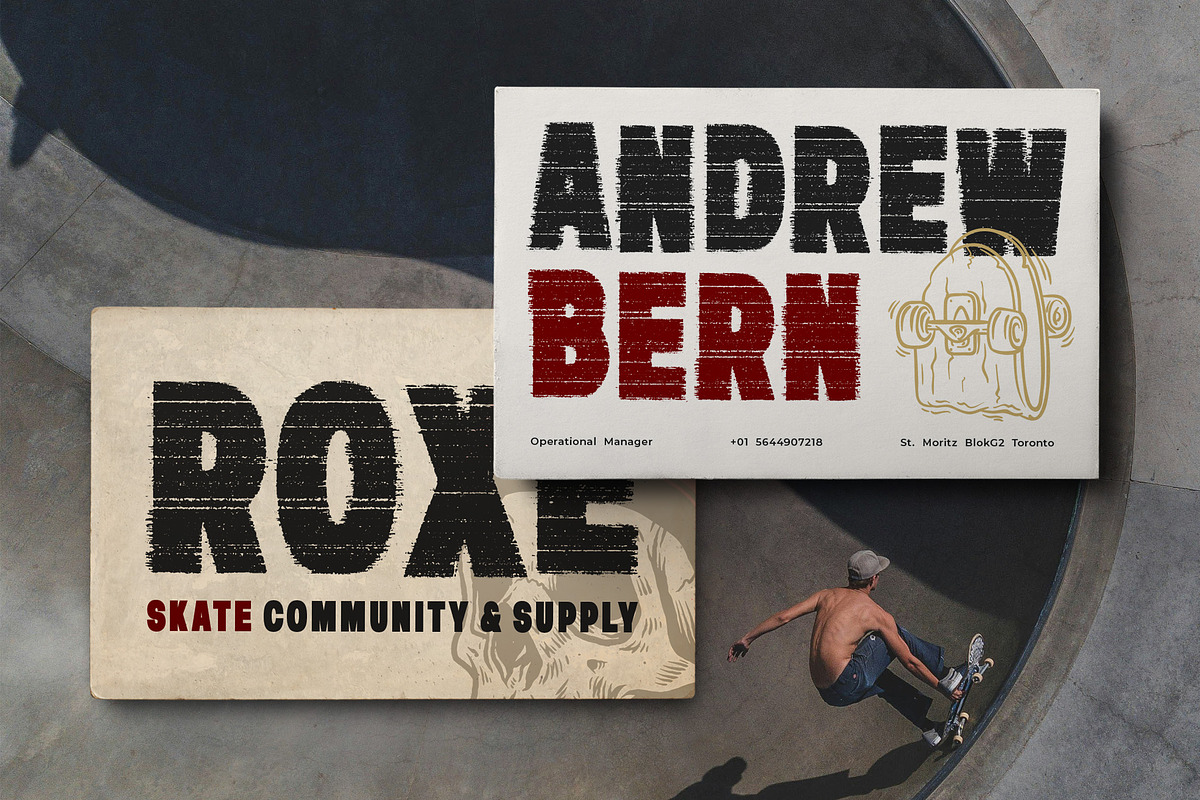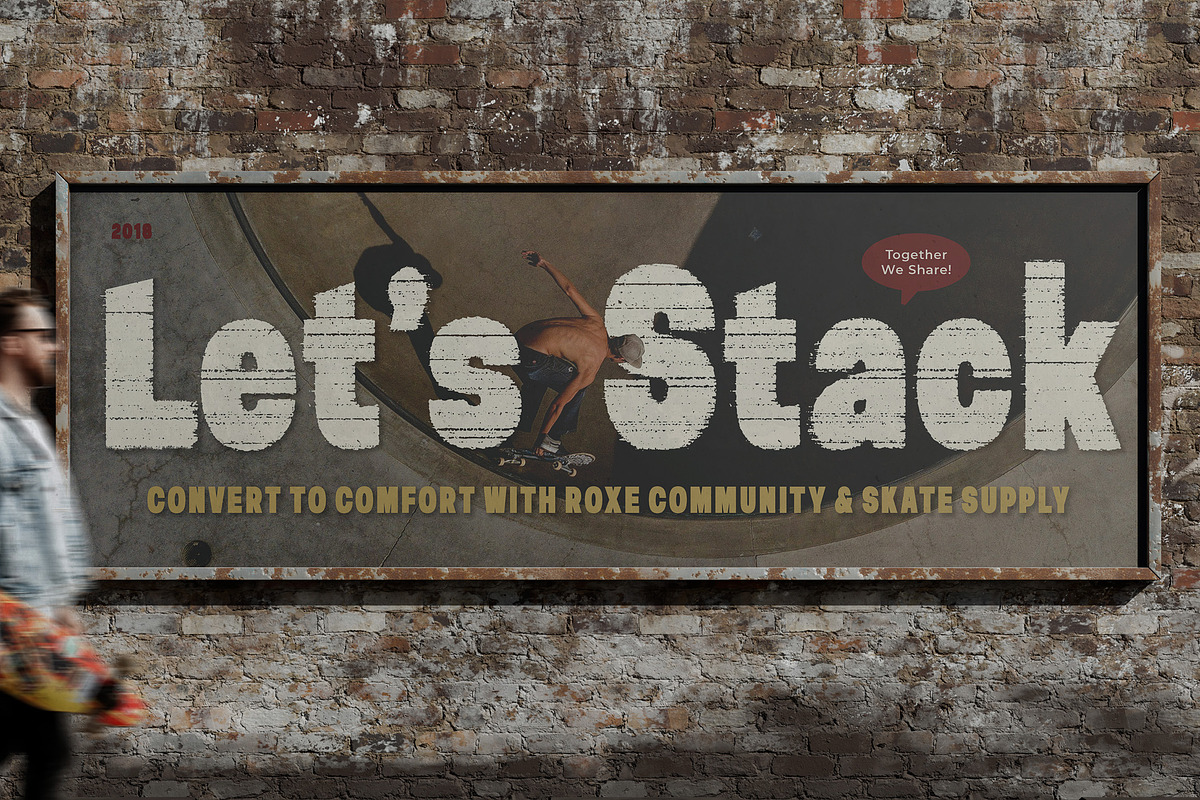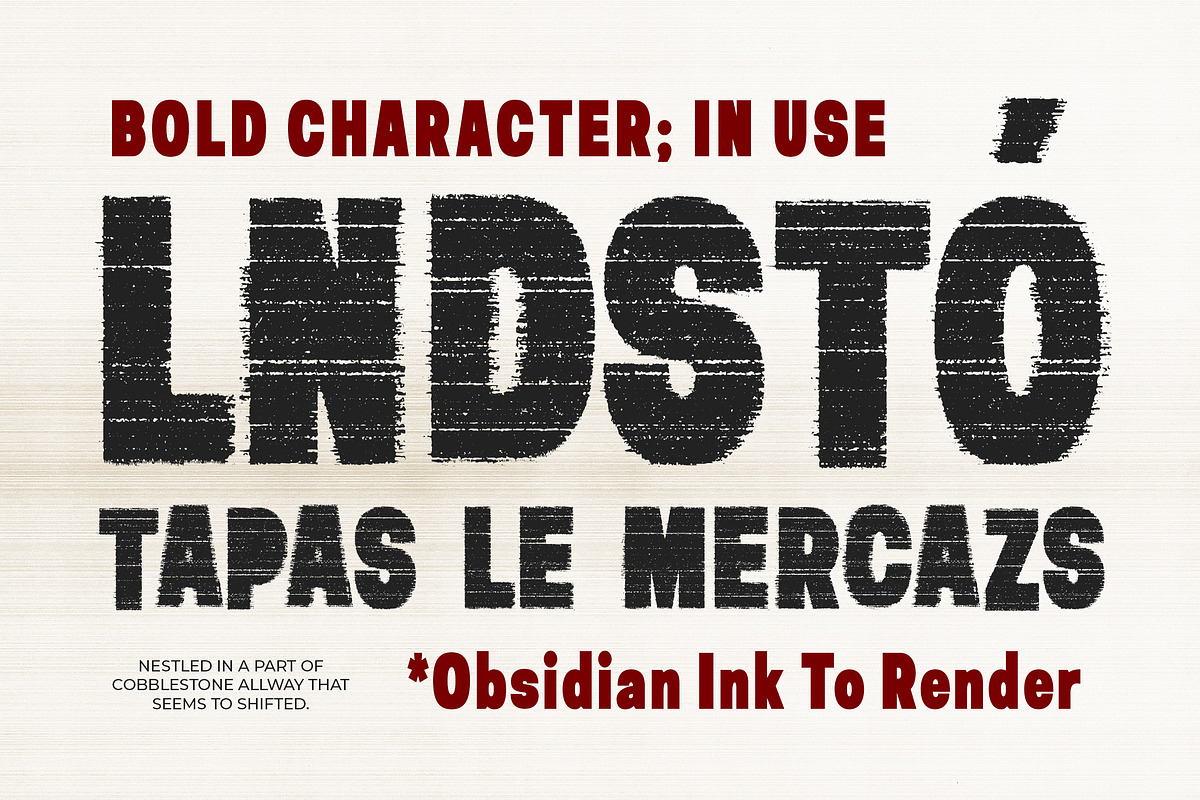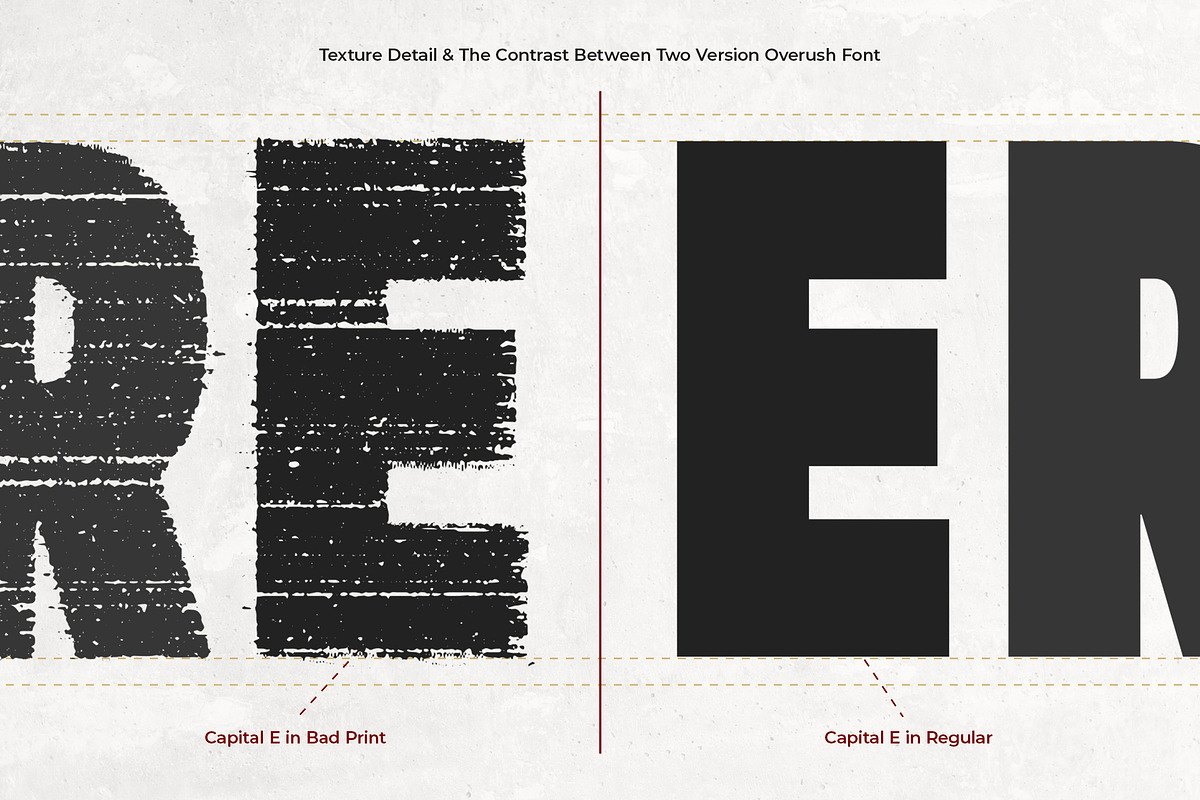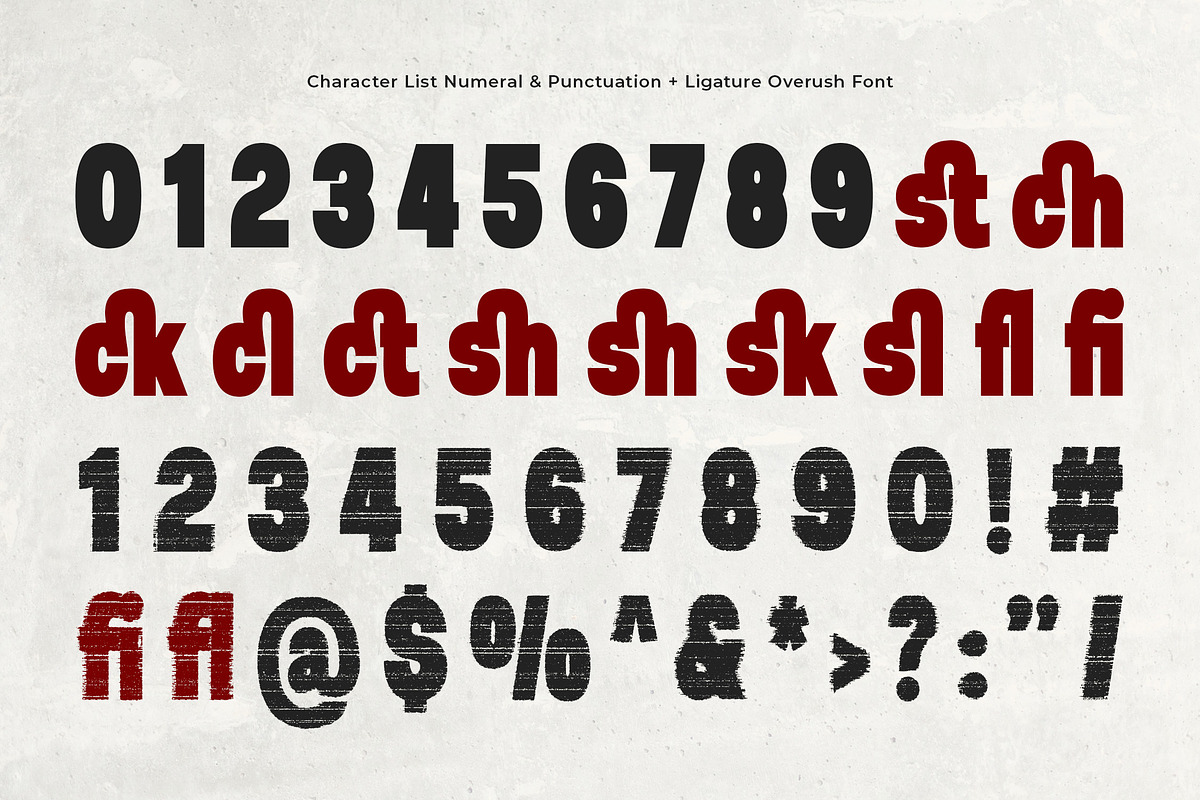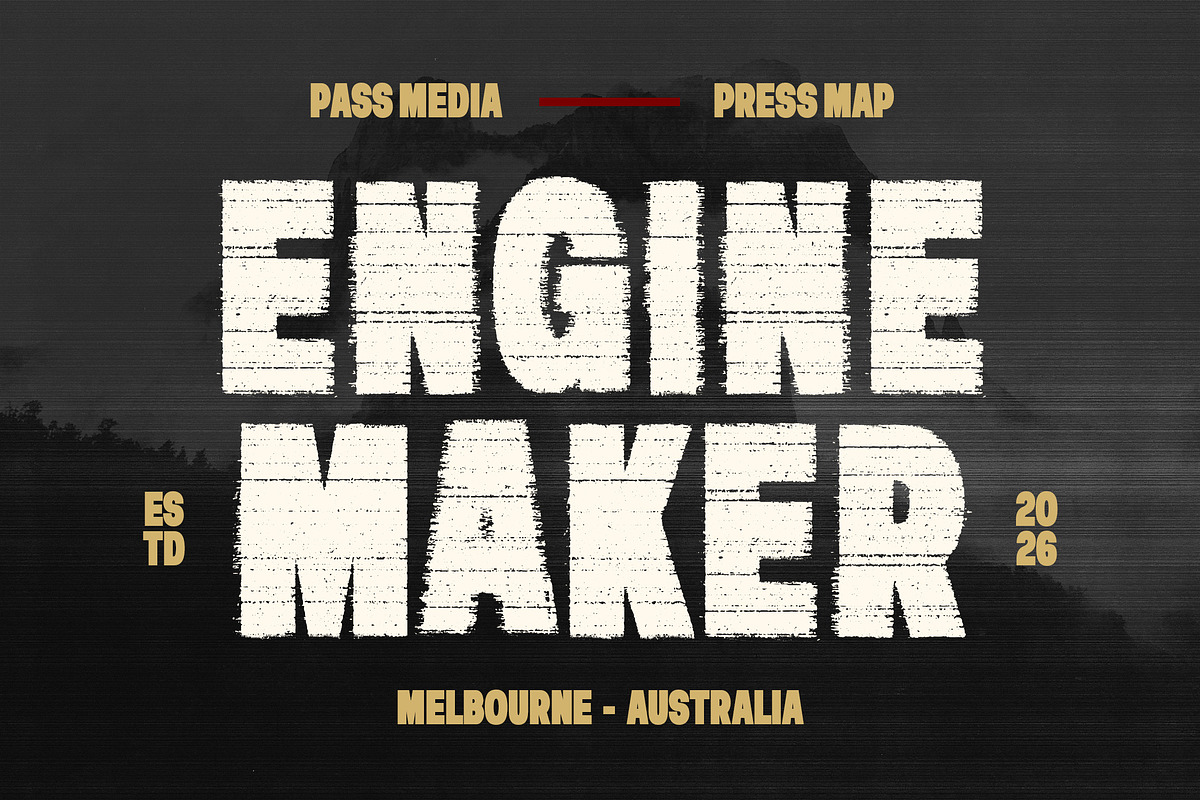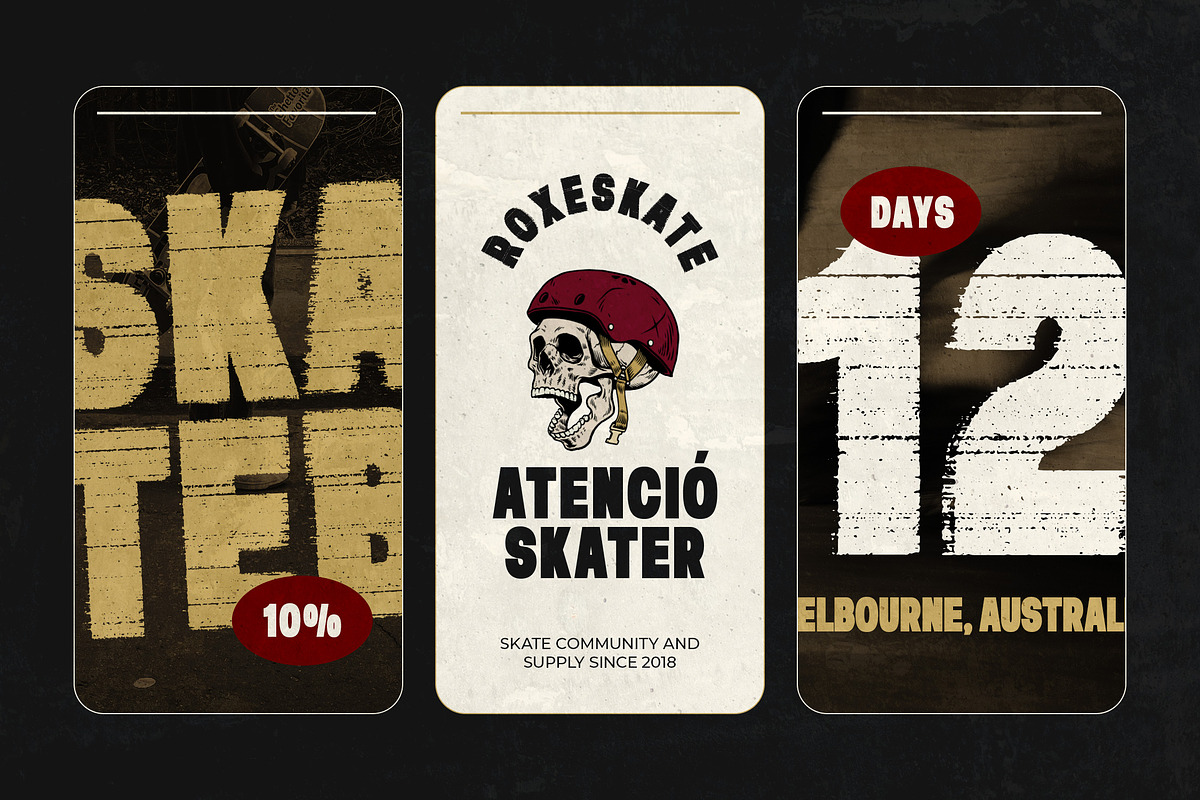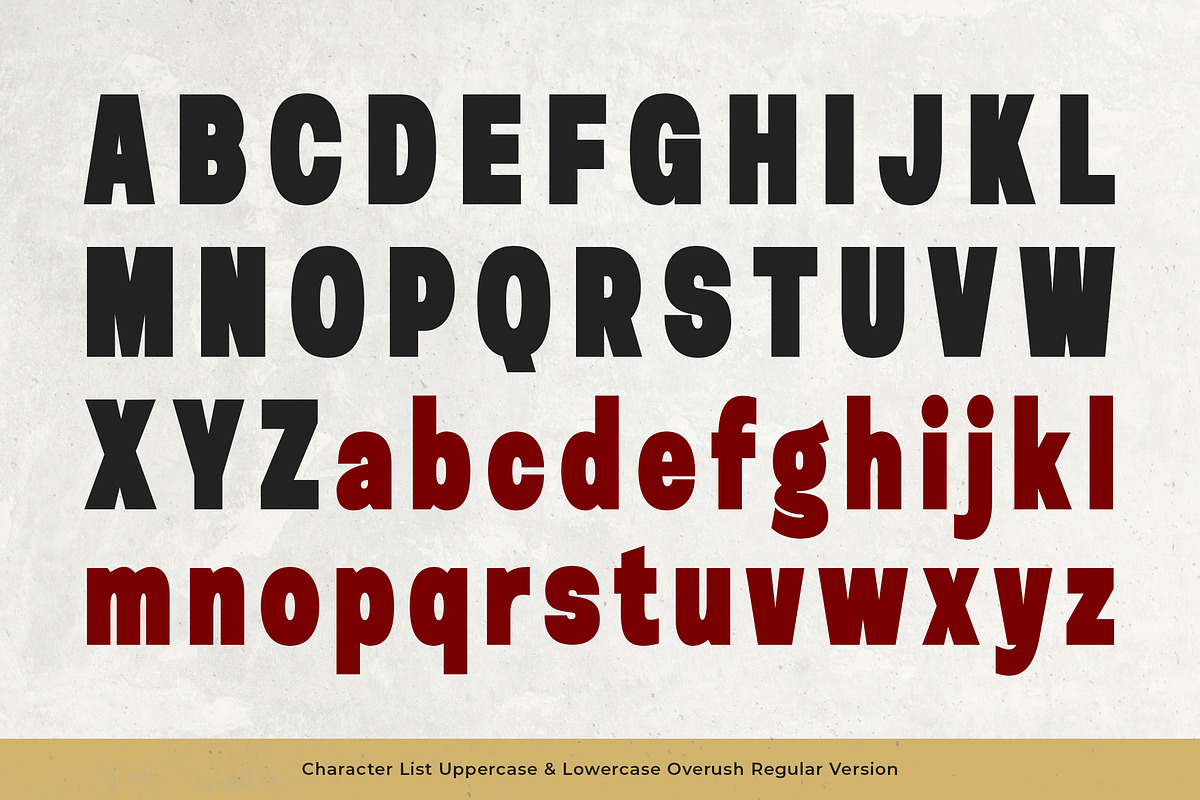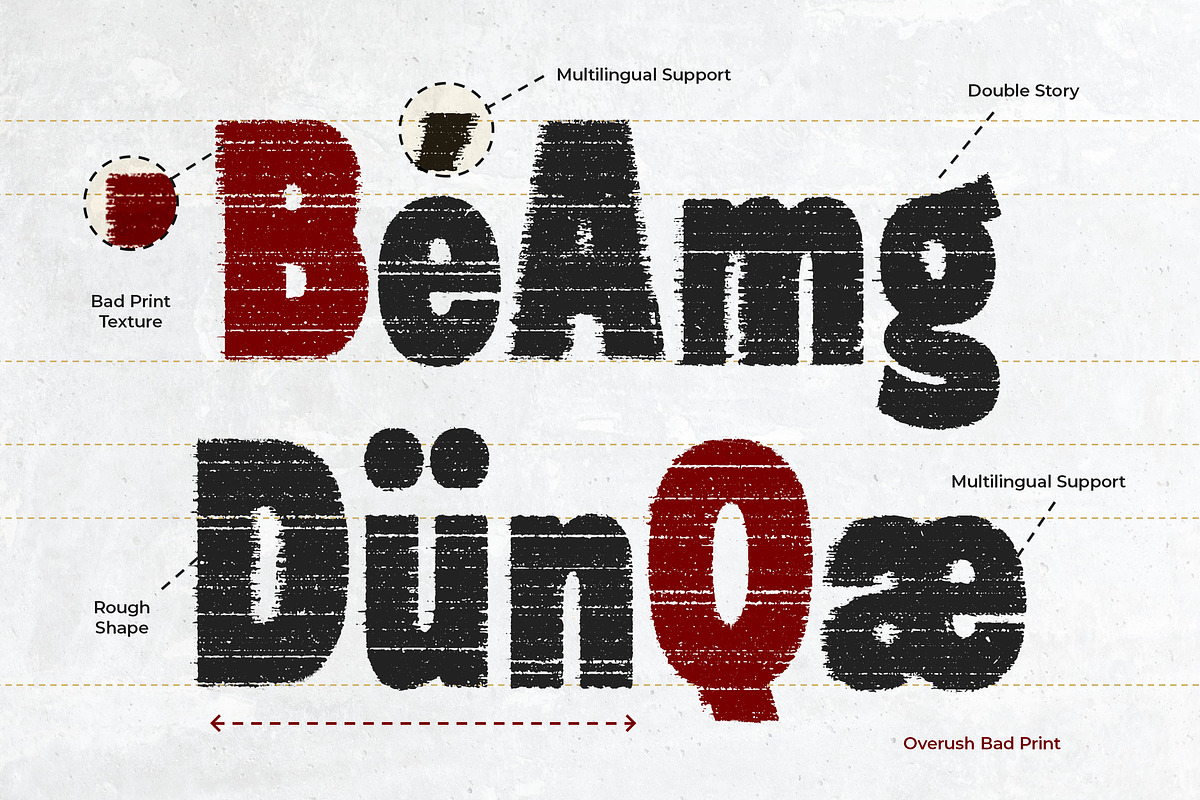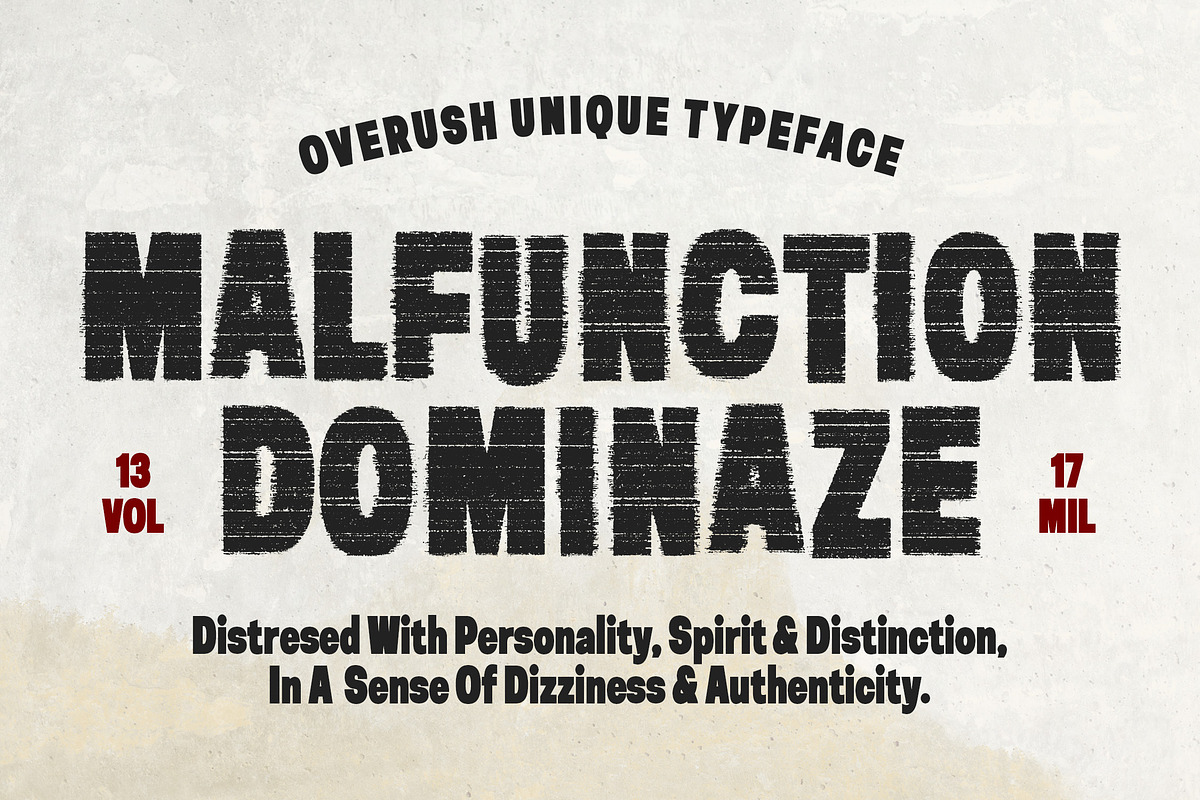
Overush - Distressed Bad Print Sans
Overush - Distressed Bad Print Bold Sans - Rough Grunge Sans Display Font
Overush is a distressed bad print bold sans font designed with rugged textures and imperfect printing effects to create a raw vintage aesthetic. Featuring bold condensed letterforms, grunge details, and worn edges, this typeface captures the authentic feel of old stamp prints. It is perfect for logos, posters, badges, branding, streetwear, packaging, retro-inspired promotional designs, and any project that needs a touch of rough texture and glitch-inspired imperfections.
Add raw vintage energy to your designs with Overush